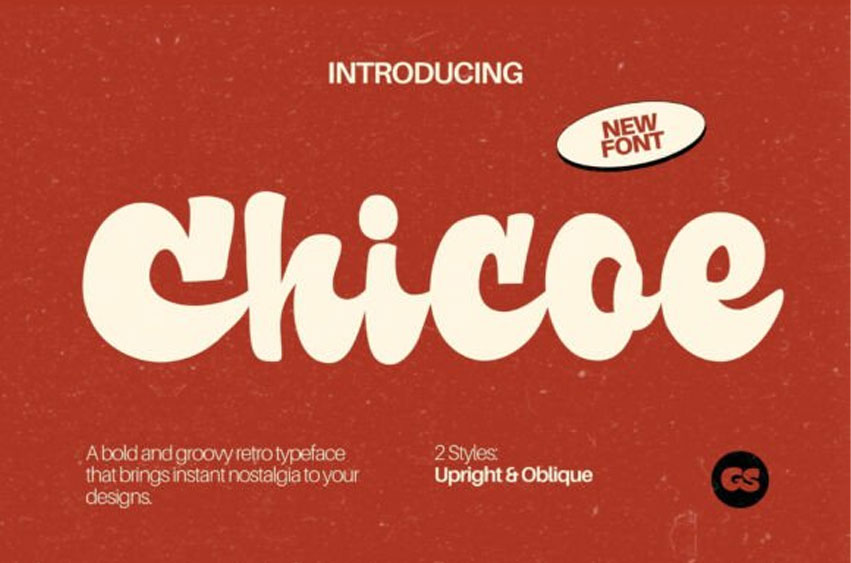
Chicoe Font Typeface, a bold and groovy retro typeface that instantly brings nostalgia to your designs. With its chunky curves and playful flow, Chicoe captures the fun spirit of the 70s while keeping a modern edge. Perfect for headlines, packaging, posters, and branding projects, this font adds a vibrant, eye-catching personality to any work.
Whether you’re designing vintage-inspired artwork, crafting playful quotes, or building standout logos, Chicoe ensures your design feels bold, funky, and full of charm. Its smooth, rounded shapes and bubble-like style are made to stand out and spread good vibes everywhere it’s used.
Available in 2 Styles: Upright and Oblique.
Plus, the Chicoe font is PUA-encoded, giving you effortless access to all glyphs, swashes, and alternate characters, so you can customize your creations with ease.